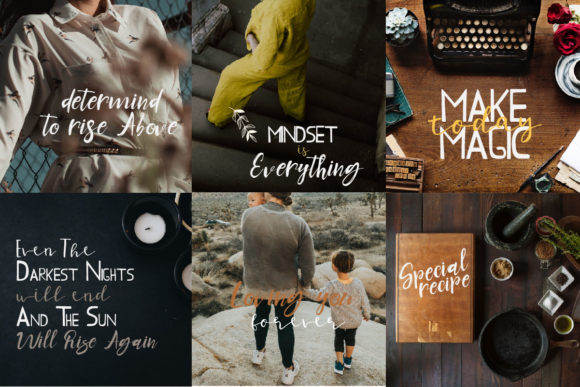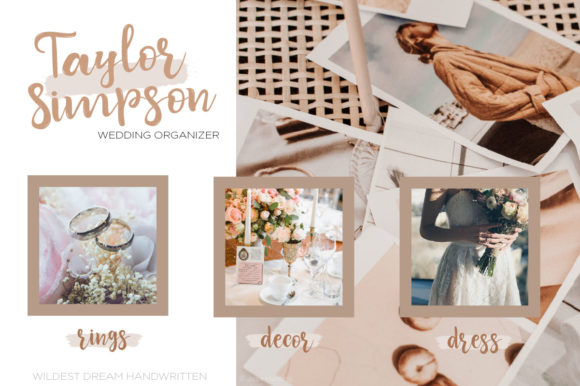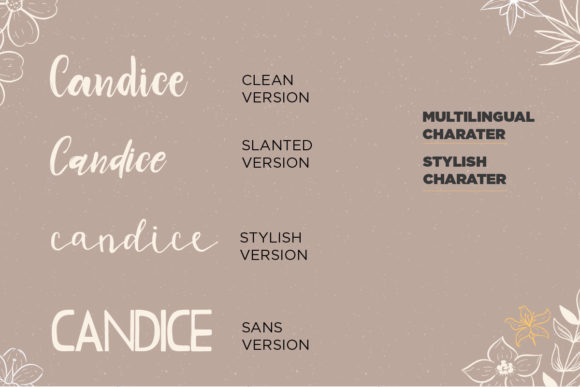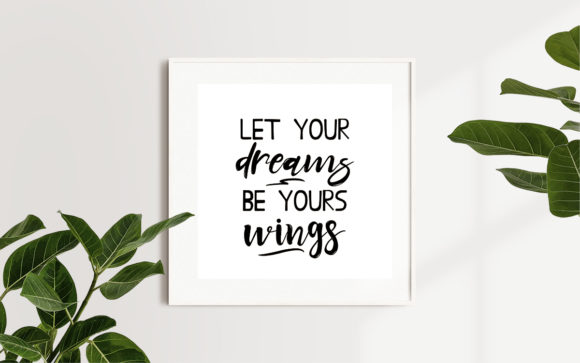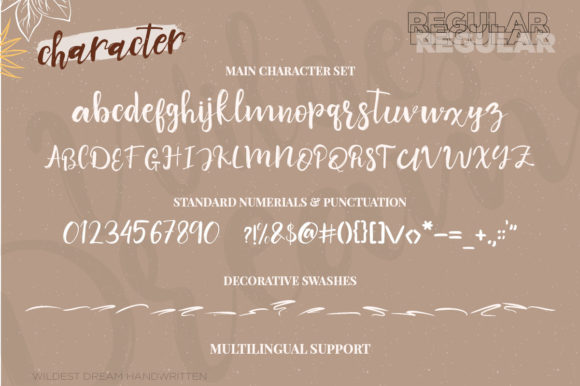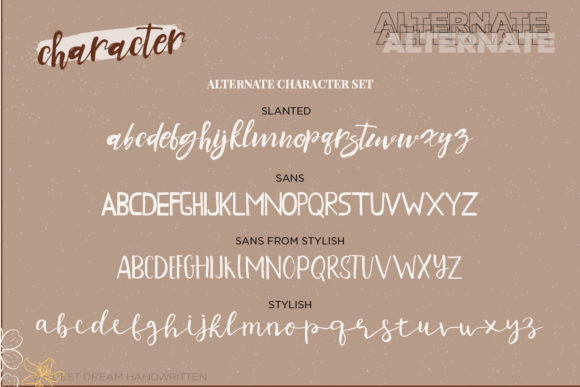
Candice Trio Font: Elevate Your Designs with Elegance and Charm
Candice Trio Font is a breathtakingly beautiful script trio that has captured the hearts of designers and crafters alike. Its unique feel, stunning style, and versatility make it an ideal choice for turning any design idea into a true standout. In this article, we’ll dive into the world of Candice Trio Font, exploring its features, benefits, and uses, as well as provide tips on how to make the most of this gorgeous font.
The Allure of Candice Trio Font
Candice Trio Font is a gorgeously light and charming script trio that exudes elegance and sophistication. Its delicate strokes, intricate details, and flowing curves make it perfect for designs that require a touch of refinement and luxury. Whether you’re working on a branding project, wedding invitation, or social media graphic, Candice Trio Font is sure to add a dash of glamour and whimsy to your design.
Unique Features of Candice Trio Font
So, what sets Candice Trio Font apart from other fonts? Here are some of its unique features:
- Tripled Threat: Candice Trio Font comes with three distinct fonts, allowing you to mix and match to create a unique look that suits your design style.
- Lightweight: This font is incredibly light, making it perfect for use on digital platforms, such as social media, blogs, and websites.
- Charming Swashes: Candice Trio Font features beautiful swashes that add a touch of elegance and sophistication to your designs.
- Highly Versatile: This font is suitable for a wide range of design projects, from branding and advertising to packaging and stationery.
Benefits of Using Candice Trio Font
Using Candice Trio Font in your designs offers numerous benefits, including:
- Instant Elegance: Add a touch of sophistication and refinement to your designs with this beautiful script font.
- Improved Readability: Candice Trio Font is highly legible, making it perfect for use on both digital and print materials.
- Enhanced Creativity: With its unique feel and charming style, Candice Trio Font is sure to inspire your creativity and help you think outside the box.
- Time-Saving: This font comes with multiple styles and swashes, allowing you to create a cohesive look without having to spend hours designing from scratch.
Design Ideas Using Candice Trio Font
Wondering how to incorporate Candice Trio Font into your designs? Here are some ideas to get you started:
- Wedding Invitations: Use Candice Trio Font to create beautiful, elegant wedding invitations that set the tone for a sophisticated celebration.
- Branding and Packaging: Add a touch of luxury to your branding and packaging with this stunning script font.
- Social Media Graphics: Elevate your social media graphics with Candice Trio Font, perfect for creating eye-catching posts, stories, and ads.
- Stationery and Cards: Use this font to create gorgeous stationery, greeting cards, and thank-you notes that are sure to impress.
Tips for Using Candice Trio Font
To make the most of Candice Trio Font, here are some tips to keep in mind:
- Experiment with Pairings: Try pairing Candice Trio Font with other fonts to create a unique and visually appealing combination.
- Use Swashes Wisely: Use the swashes to add a touch of elegance to your designs, but be mindful not to overdo it.
- Adjust Font Sizes: Experiment with different font sizes to create visual hierarchy and add emphasis to important text.
- Have Fun: Don’t be afraid to get creative and try new things with Candice Trio Font – it’s a versatile font that’s meant to be enjoyed!
In conclusion, Candice Trio Font is a stunning script trio that is sure to elevate your designs with its elegance, charm, and versatility. Whether you’re a designer, crafter, or DIY enthusiast, this font is a must-have in your toolkit. So why wait? Fall in love with Candice Trio Font and turn your design ideas into true standouts!
| Author | Wildest Dreams Co |